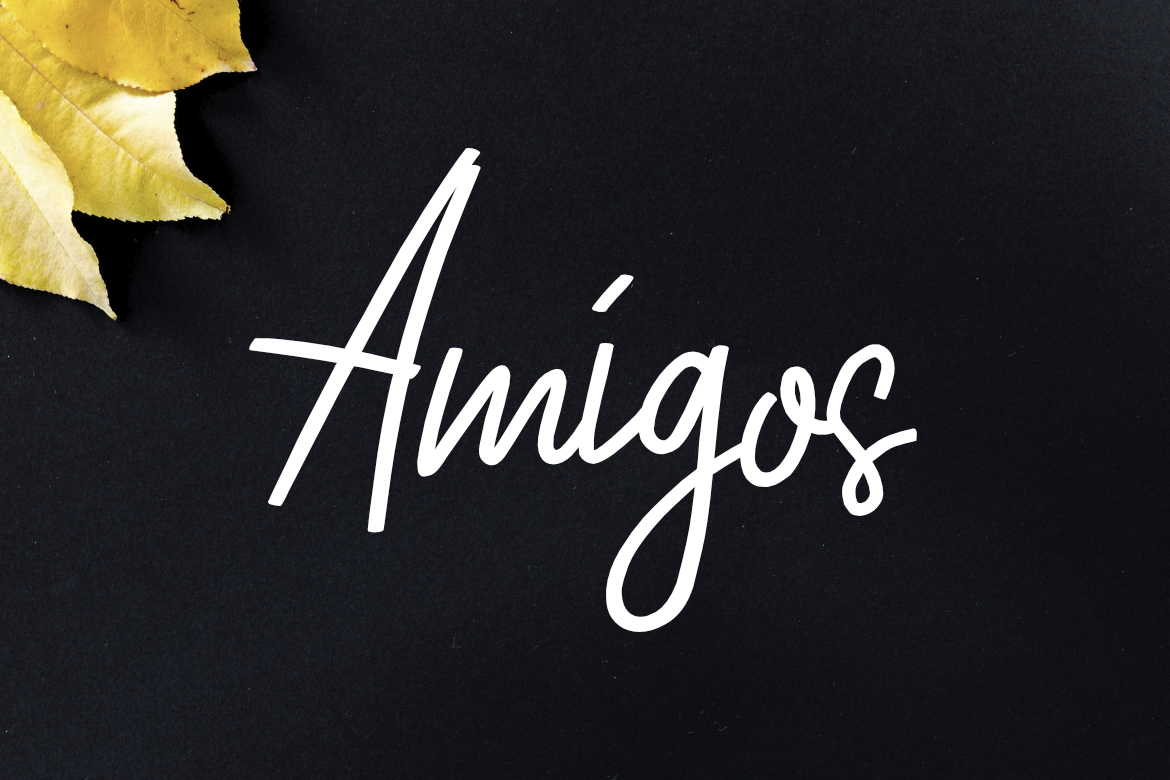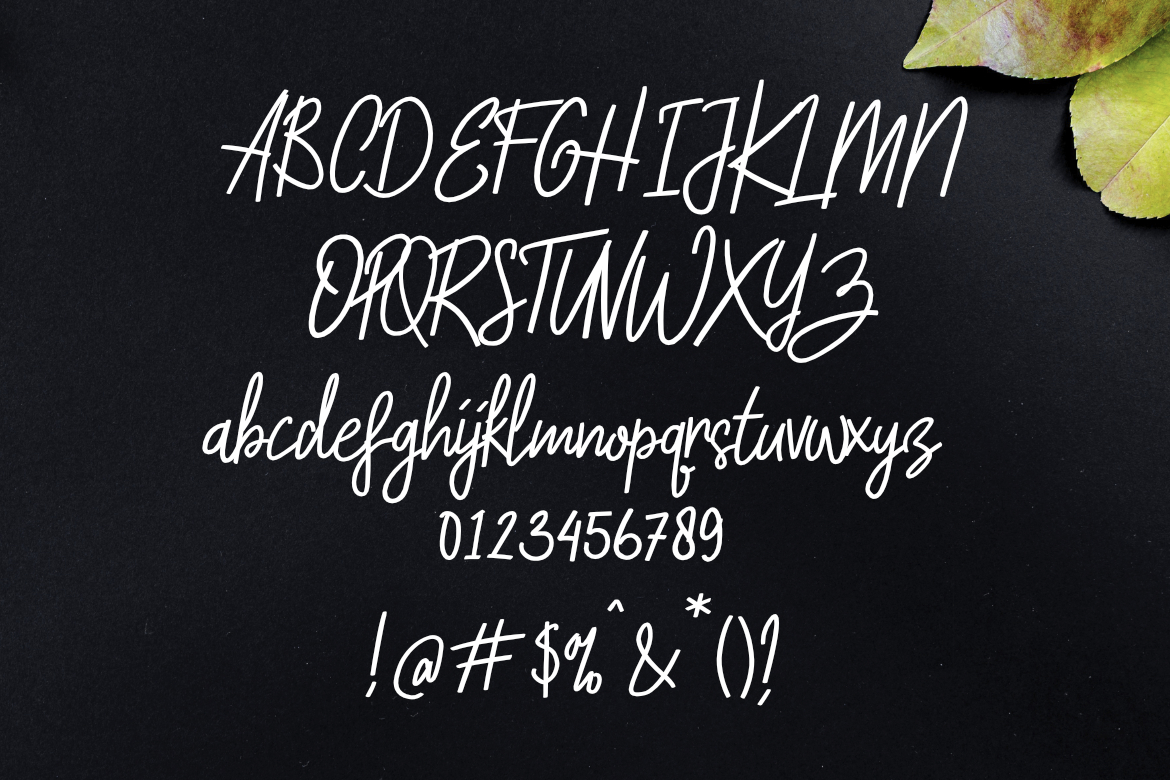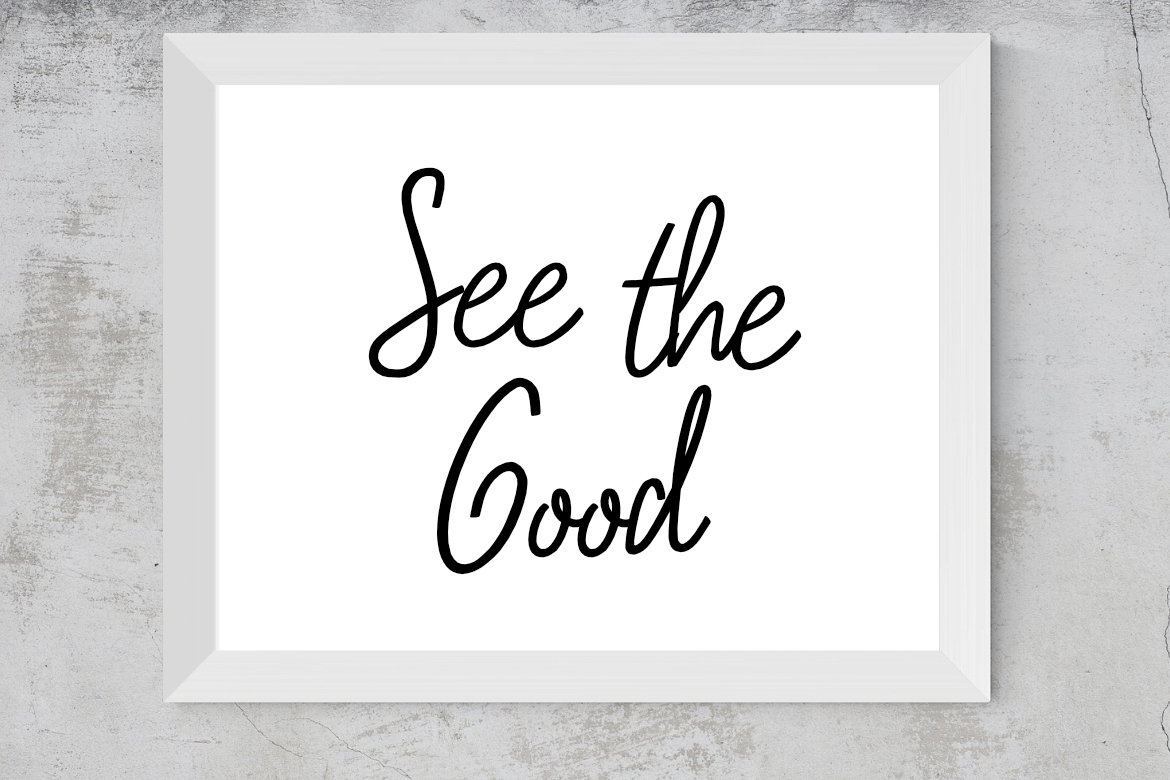
Amigos Font
About Amigos Font
Amigos is a friendly and modern script font, not too floral or delicate making it suitable for a wide range of styles and designs. This font is simple, natural, and adaptable.